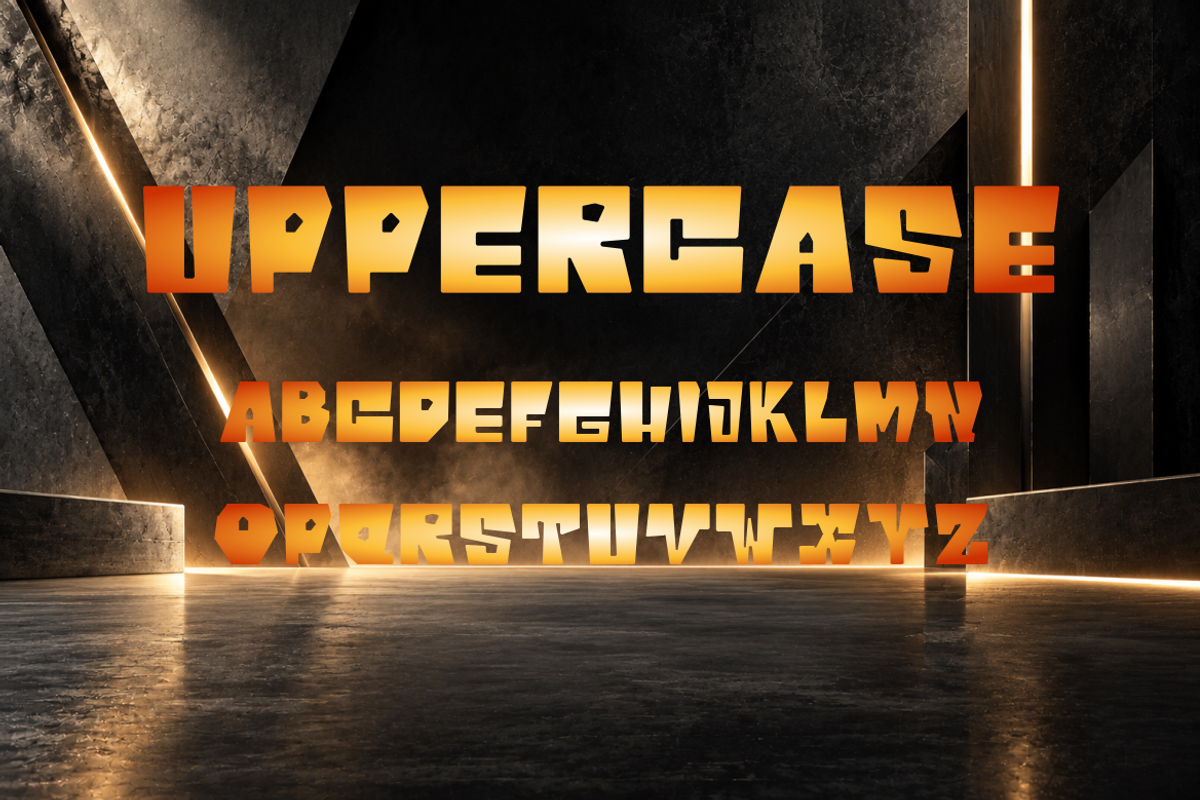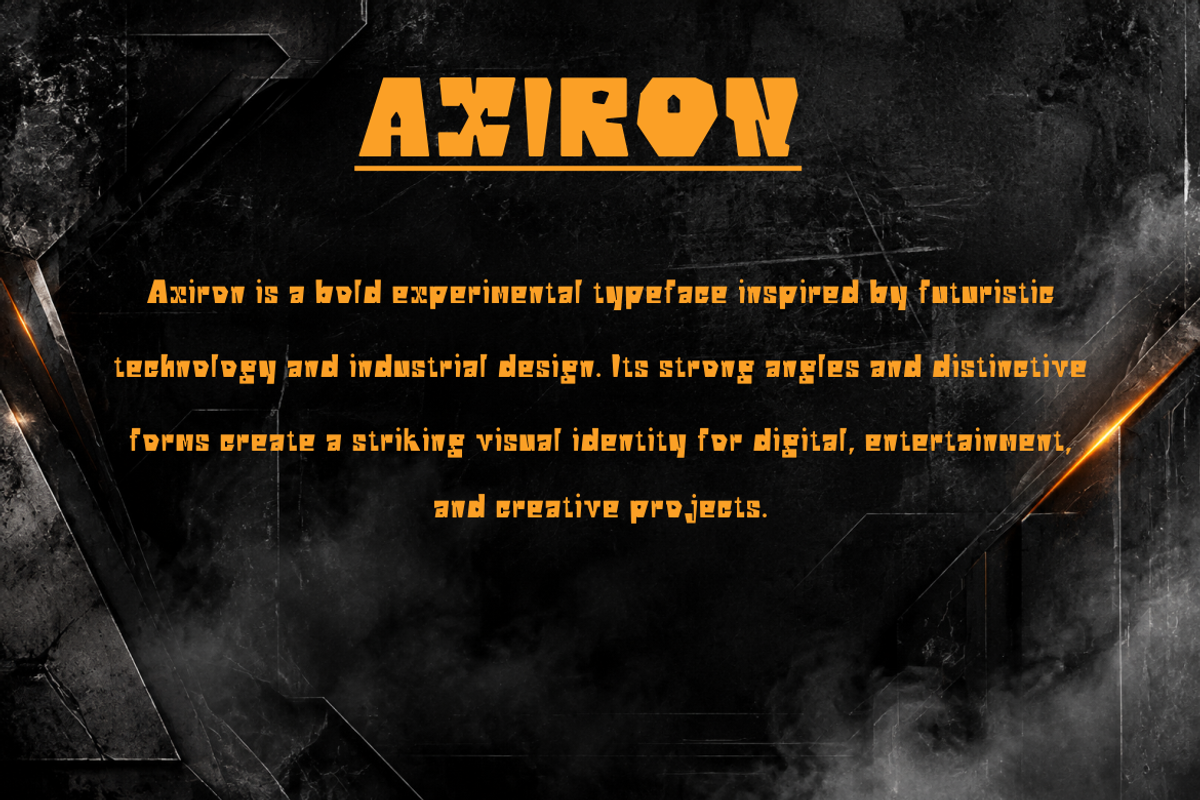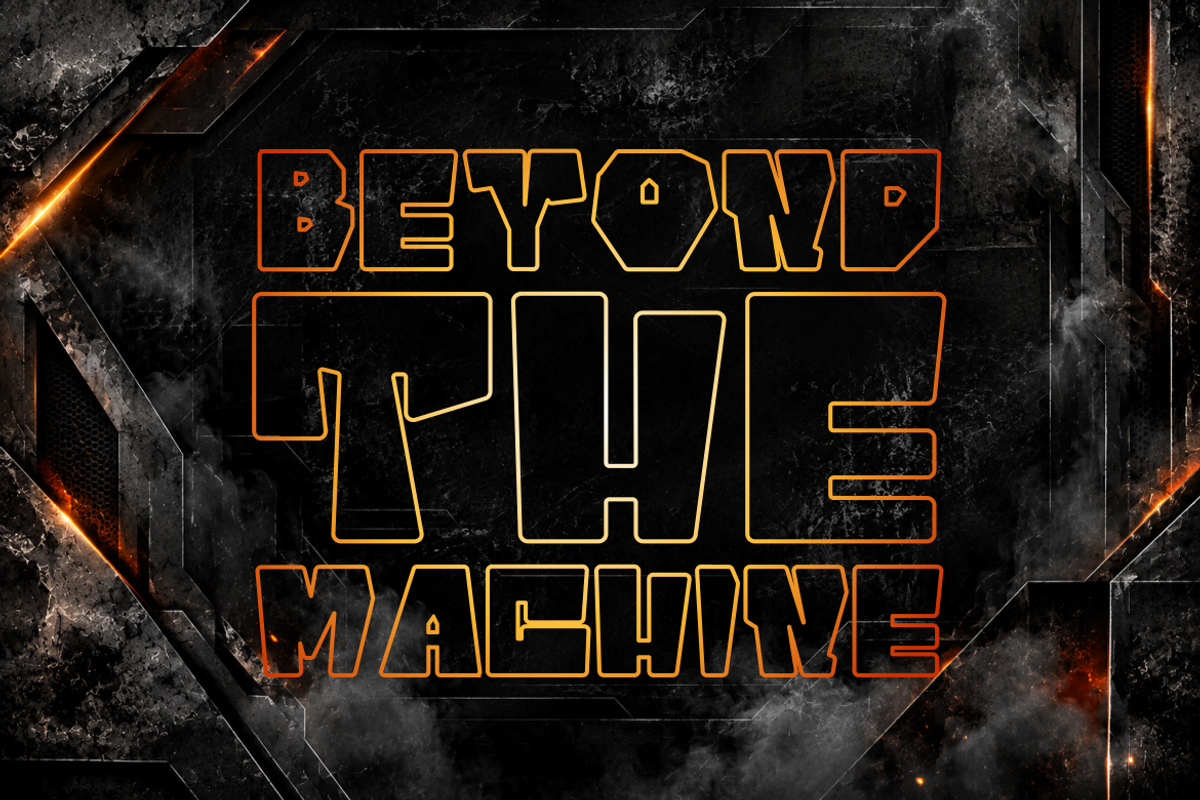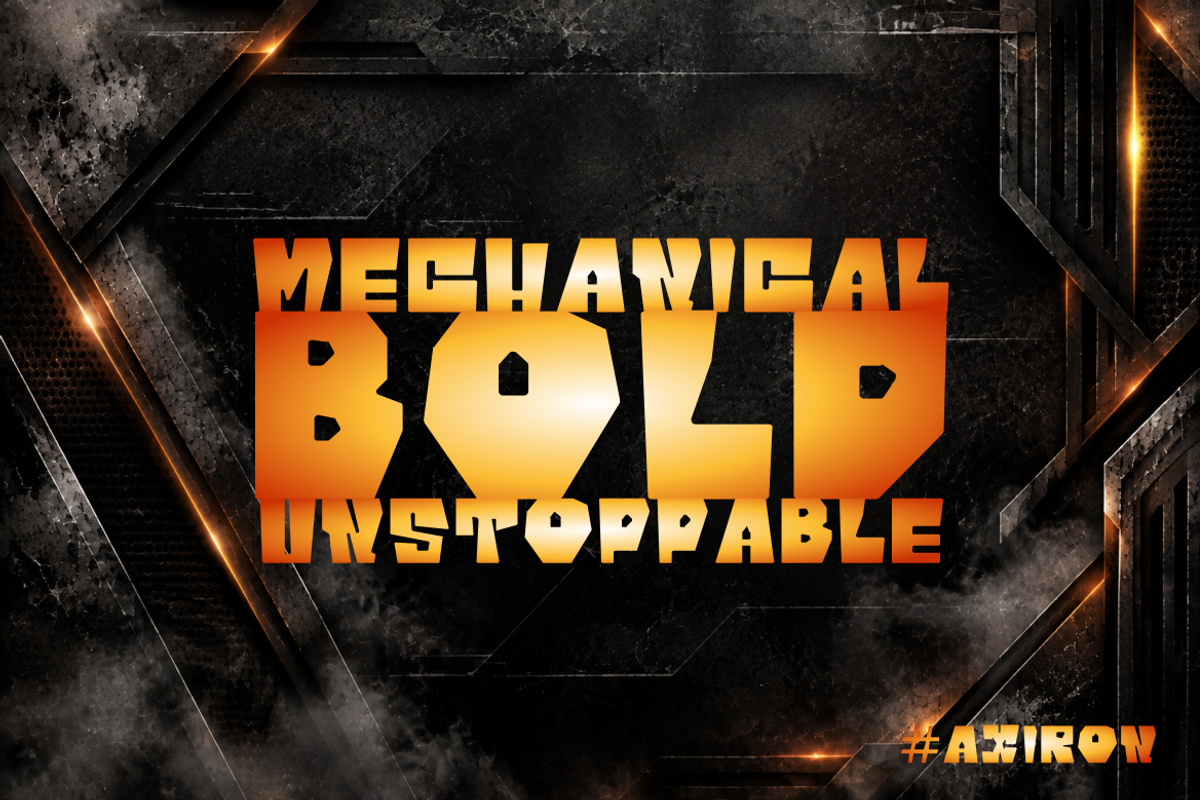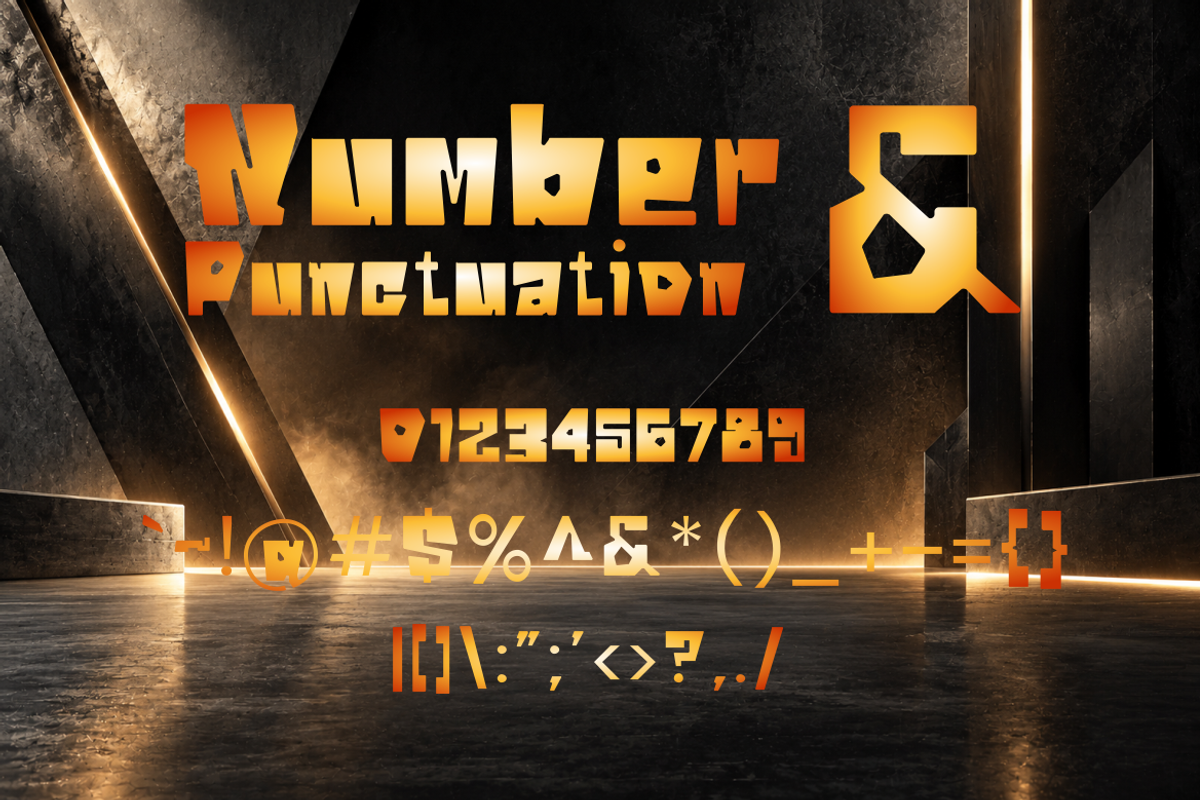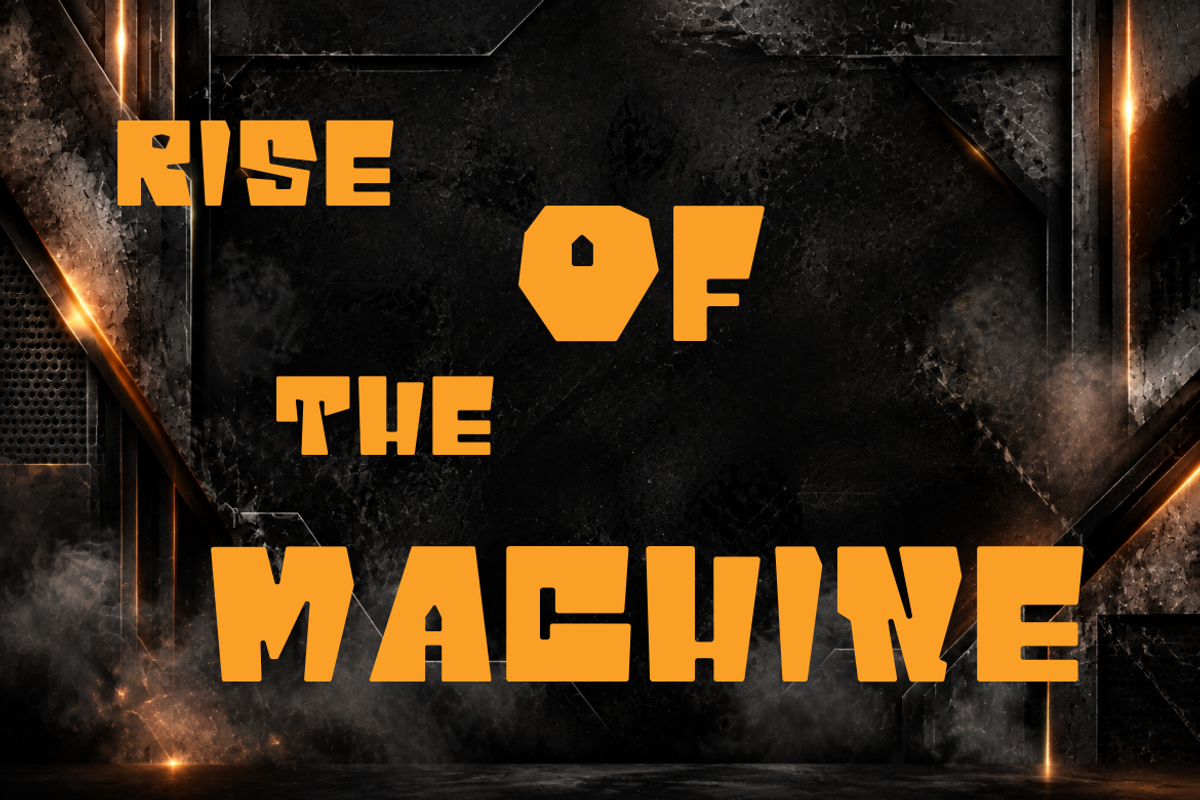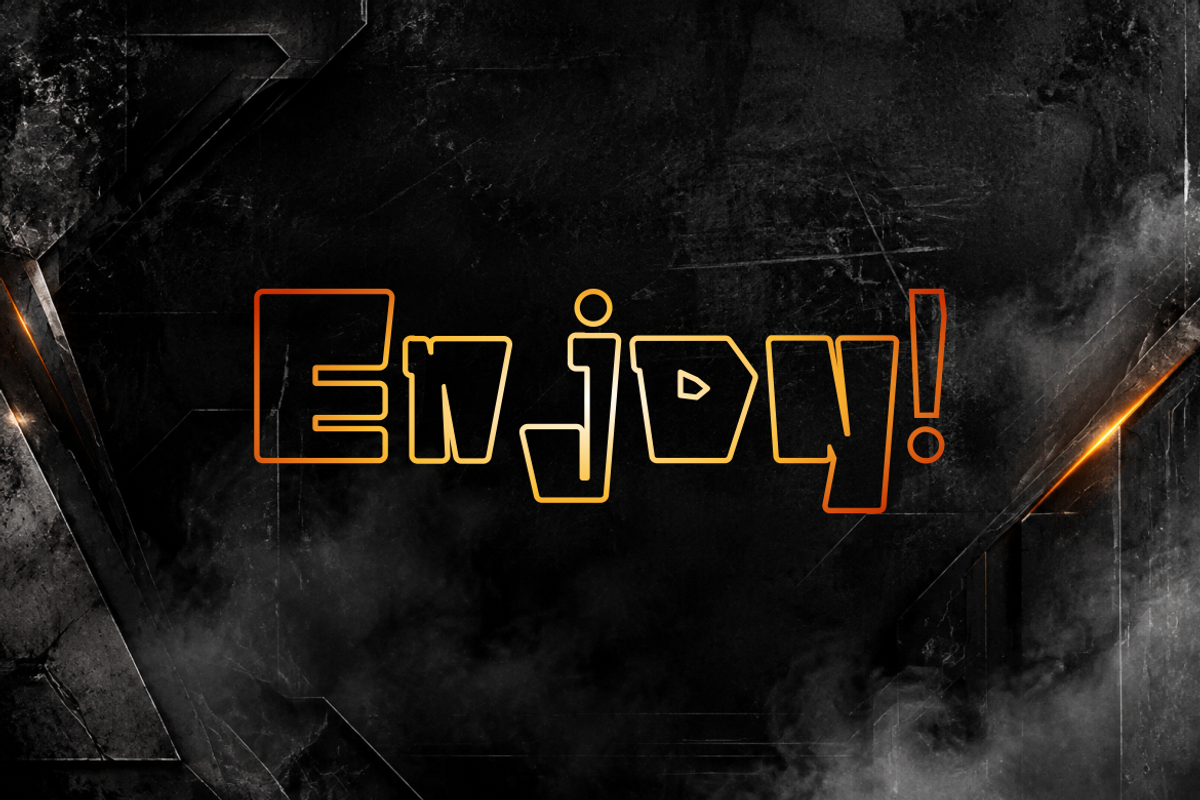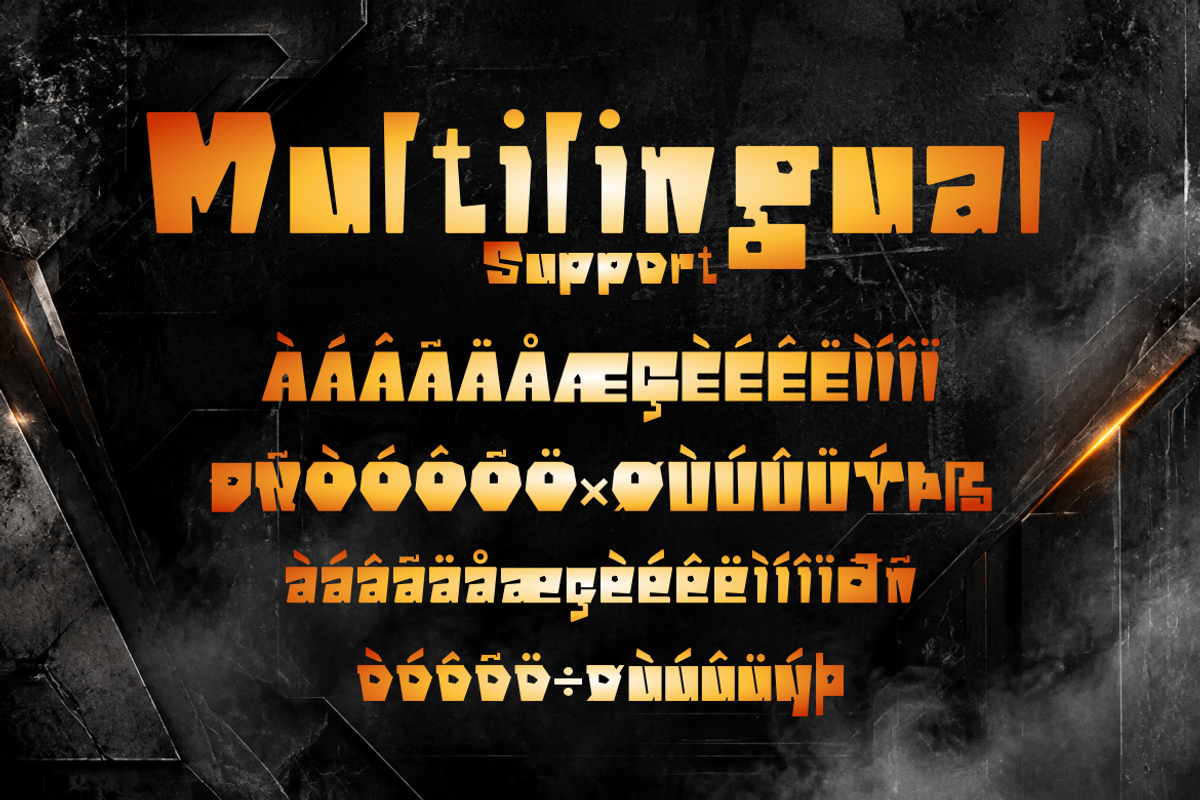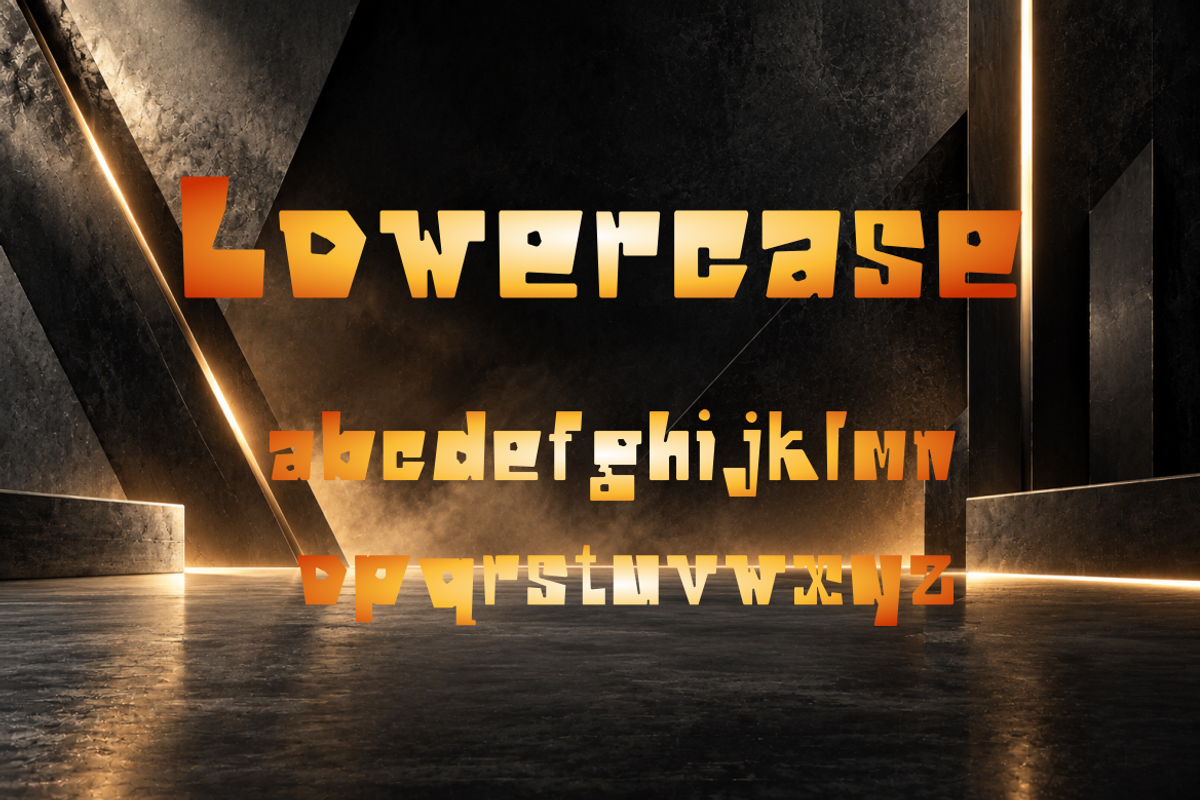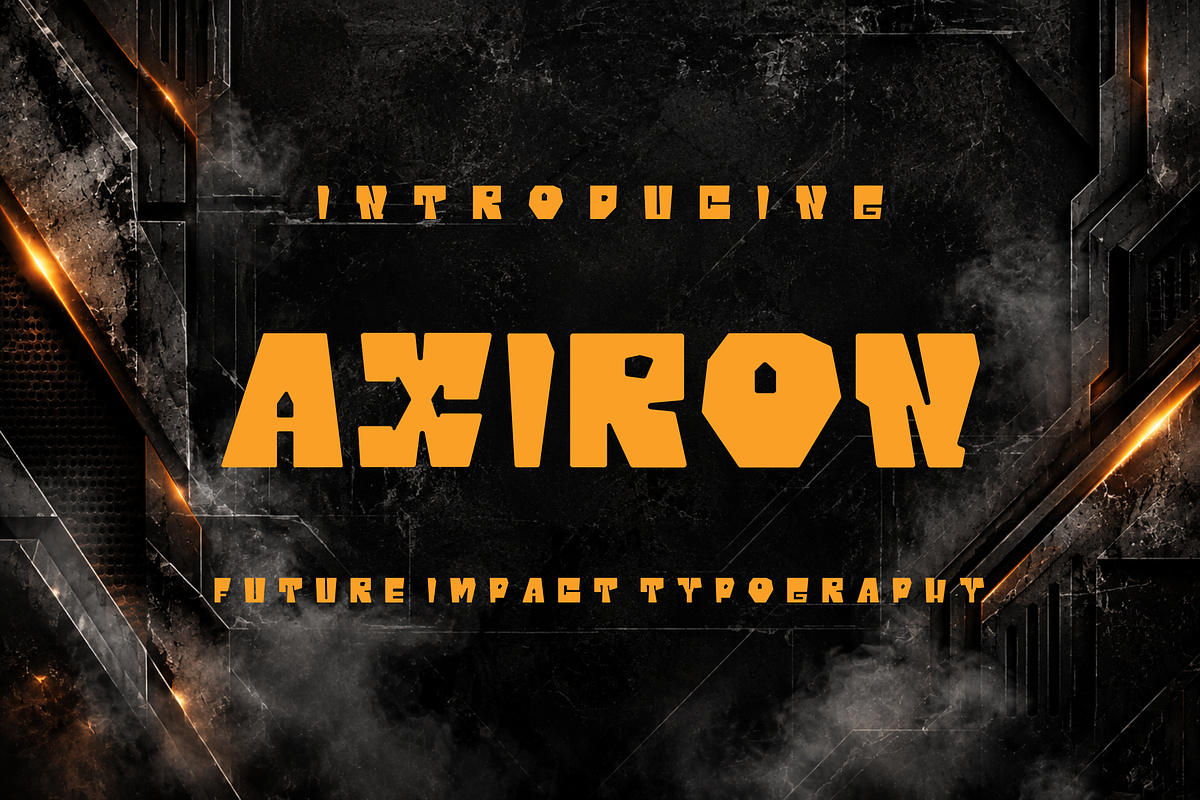
Axiron
Axiron is a futuristic display typeface created for bold visual statements and high-impact designs. Inspired by advanced technology, cyber aesthetics, and industrial structures, Axiron combines sharp geometric forms with a unique mechanical character to deliver a powerful next-generation look.
Designed to create strong visual impact, Axiron is perfect for projects that require a futuristic and distinctive identity — from gaming titles and esports branding to sci-fi posters, digital artwork, technology branding, and modern creative campaigns.
- Futuristic display font style
- Bold geometric letterforms
- Unique mechanical and cyber-inspired details
- Numbers and punctuation included
- Ideal for headlines, logos, and large typography compositions
- Gaming & esports branding
- Sci-fi posters and movie titles
- Technology and digital projects
- Logo design
- Album covers
- YouTube thumbnails
- Social media graphics
- Modern advertising campaigns
Axiron — Future Impact Typography. Built to make your designs stand out beyond the ordinary.